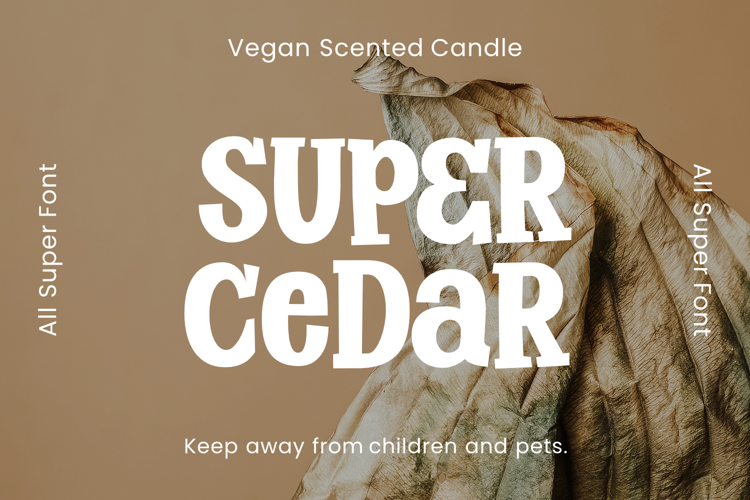
Super Cedar Font
About Super Cedar Font
Super Cedar: This bold serif font adds a touch of whimsy to your headlines. It's perfect for making a statement that's both impactful and lighthearted.